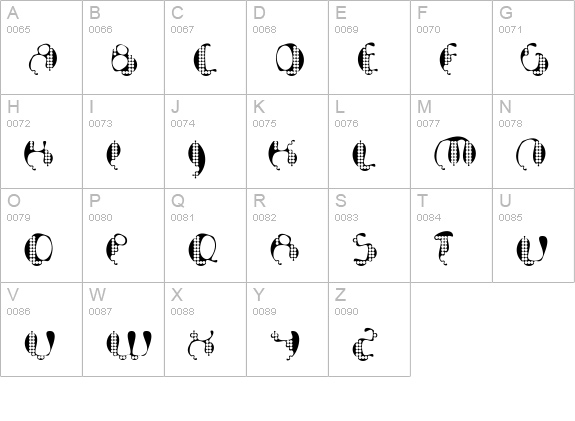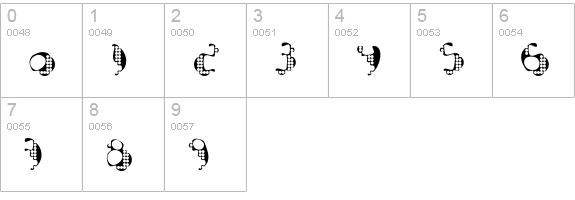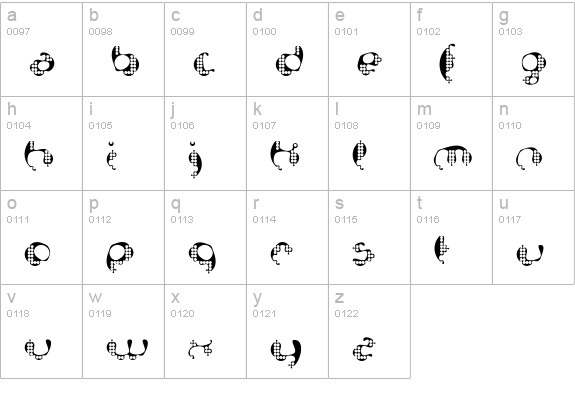
The Bionic-Dynamic font is a modern and sleek typeface that exudes a sense of innovation and sophistication. With its futuristic design and dynamic appearance, this font is perfect for creating eye-catching graphics and designs that demand attention. Featuring a unique blend of bionic elements and dynamic shapes, the Bionic-Dynamic font is ideal for projects that require a cutting-edge and contemporary look. Whether you're designing posters, logos, websites, or any other creative project, this font will add a touch of modernity and style. And the best part? The Bionic-Dynamic font is available for free download at FontsMarket.com. So go ahead and give your designs a futuristic edge with this captivating and versatile typeface.